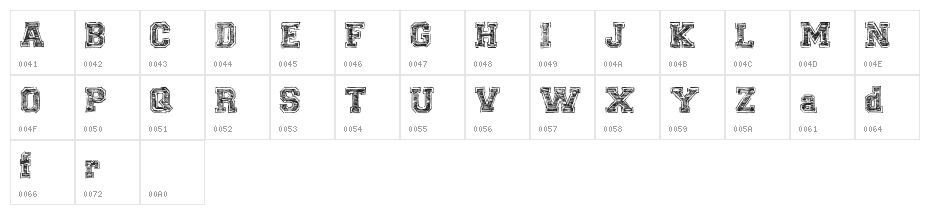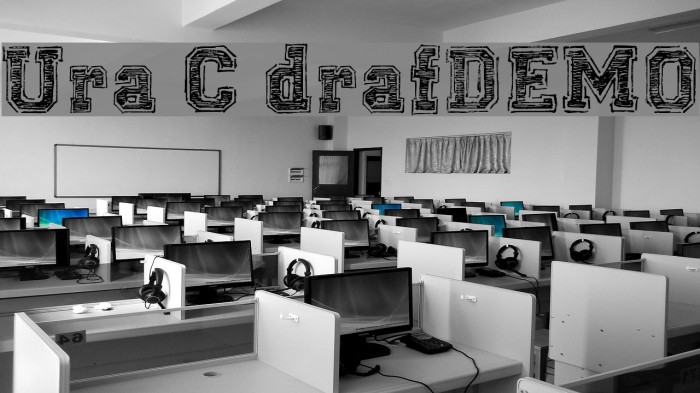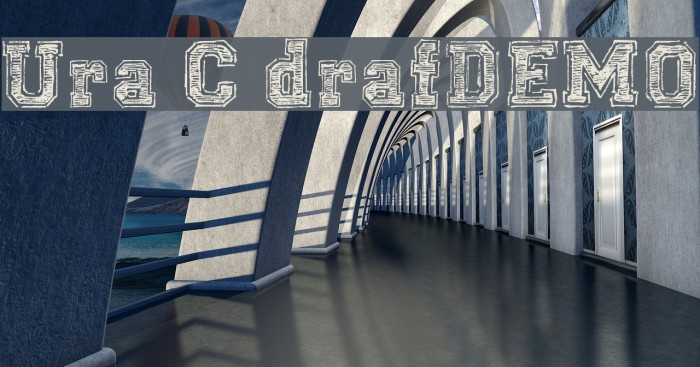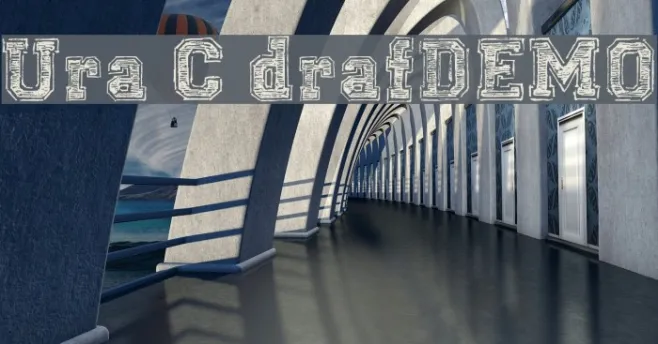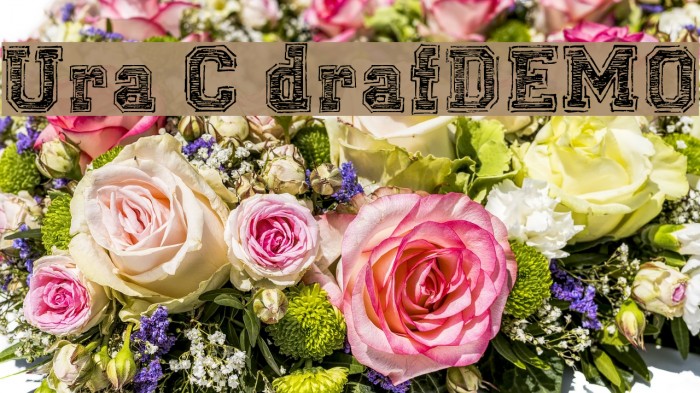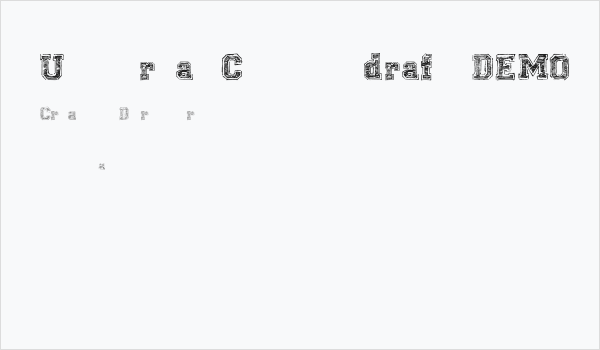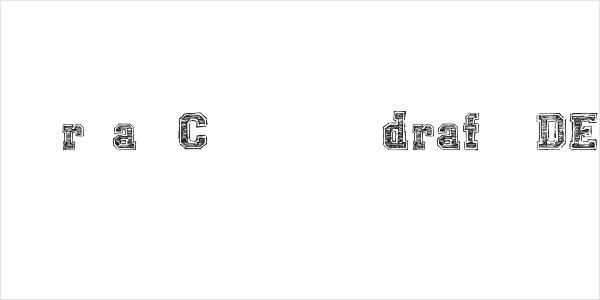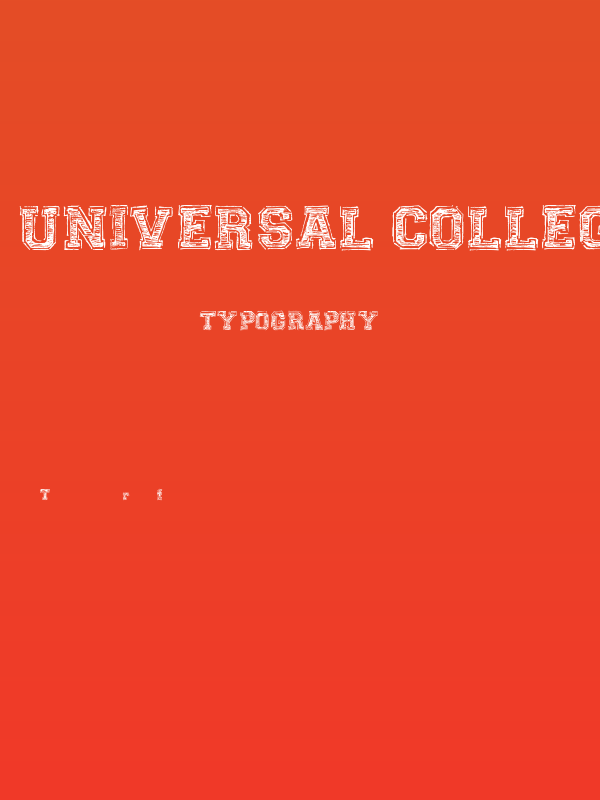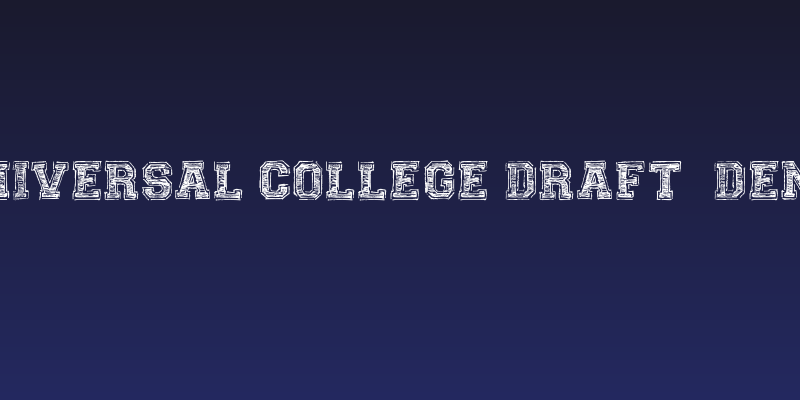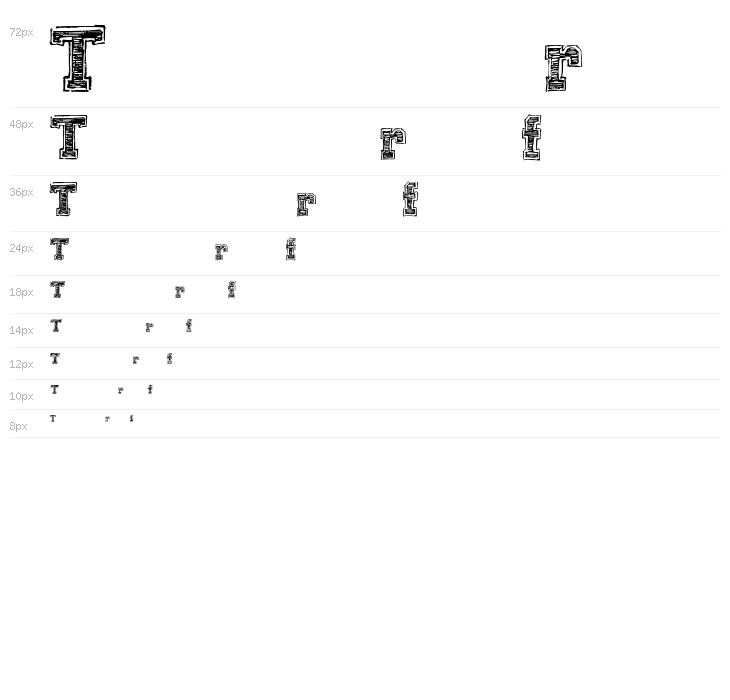
Universal College draft_DEMO Font
Universal College draft_DEMO Description
This font features a bold, decorative style with a hand-drawn, sketch-like appearance. Each character is outlined with a rough, textured line that gives it a vintage, collegiate feel. The uppercase letters are particularly striking, with strong, angular lines and a sense of weight and presence. The lowercase letters maintain the same textured style, though they are slightly more compact. This font does not include numbers or special characters, focusing instead on a robust alphabet. The overall look is reminiscent of old-school sports team logos or university insignias, making it ideal for projects that require a touch of nostalgia or a bold statement.
| Use Case | Logos, Headlines |
| Proposed Projects | Ideal for sports team logos, university branding, vintage posters, and retro-themed designs. |